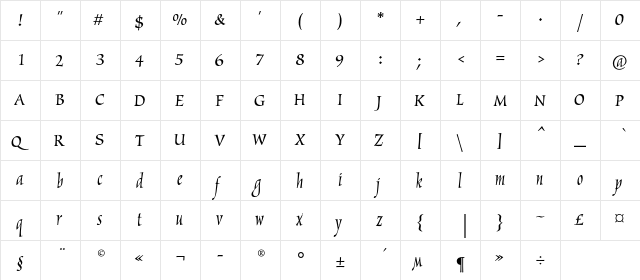
ArthurC Regular
Design Context for ArthurC Typeface
ArthurC is a composed and adaptable typeface that performs quietly and consistently across a wide range of design contexts.